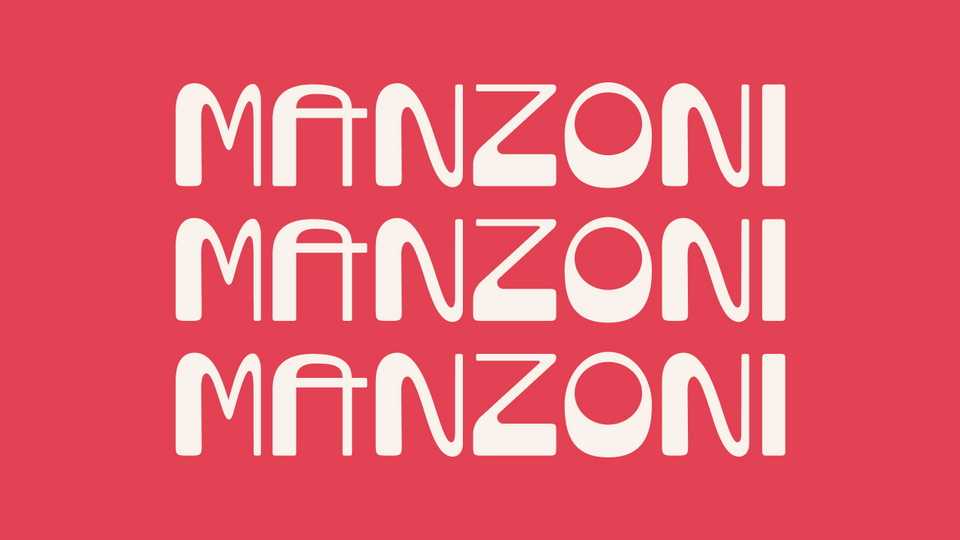
Download Manzoni font, a display typeface inspired by the Erasmus exchange in Italy. Letters for Manzoni found on the street signs and walls were the main inspiration for the project.
Designer: Asia Dubielewska